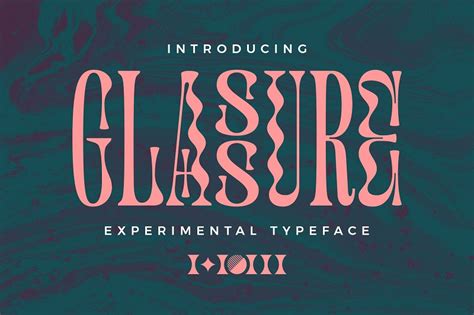
Unlock Your Creative Vibe With Psychedelic Fonts
Unlock Your Creative Vibe with Psychedelic Fonts
Hey design fanatics and creative souls! Ever stumbled upon a font that just screams vibe ? That’s where psychedelic fonts come into play. These aren’t your average, run-of-the-mill letterforms, guys. We’re talking about fonts that are bold, groovy, and dripping with personality, perfect for making any design project pop. If you’re looking to add a touch of retro flair, mind-bending aesthetics, or just something seriously unique to your work, you’ve landed in the right place. Let’s dive deep into the kaleidoscopic world of psychedelic typography and discover how you can harness its power to create something truly unforgettable. Whether you’re a seasoned designer or just dabbling in creative projects, understanding the impact of these fonts can seriously elevate your game. We’re going to explore what makes them so special, where you can find them, and how to use them effectively. Get ready to trip out on some amazing type!
What Exactly Are Psychedelic Fonts?
So, what’s the big deal about psychedelic fonts ? Think back to the swinging sixties and seventies – the era of vibrant colors, mind-expanding music, and art that pushed boundaries. Psychedelic typography emerged from this cultural explosion, aiming to visually represent the feeling of a psychedelic experience. These fonts are characterized by their fluidity , organic shapes , and often exaggerated features . You’ll often see them with wavy lines, distorted letterforms, bubbly or bulbous elements, and sometimes even a sense of movement or distortion. They’re designed to grab attention and evoke a specific mood – one of fun, rebellion, freedom, and a bit of playful weirdness. Unlike the clean, minimalist fonts we see everywhere today, psychedelic fonts embrace maximalism. They’re about making a statement, being bold, and not afraid to be a little bit over the top. The goal is to create a visual experience that’s as engaging and memorable as the content itself. They can range from softly rounded and whimsical to sharp, angular, and intensely energetic. The key is that they break away from conventional typographic rules, offering a unique visual language that speaks volumes about creativity and individuality. They are often inspired by natural forms, flowing water, or even the visual patterns seen during altered states of consciousness, translating these abstract concepts into tangible letterforms that feel alive and dynamic. It’s this departure from the norm that makes them so captivating and effective for certain design applications.
The History and Cultural Impact of Psychedelic Typography
To truly appreciate psychedelic fonts , we gotta take a trip down memory lane. These distinctive letterforms really hit their stride in the 1960s and 1970s , a period marked by counterculture, rock and roll, and a whole lot of experimentation. Think iconic band posters for Jimi Hendrix, The Doors, and Janis Joplin – those posters were often emblazoned with typography that mirrored the music’s energy and the era’s spirit. Artists like Wes Wilson and Victor Moscoso were pioneers, creating lettering that was as much a part of the artwork as the illustrations themselves. They understood that the font wasn’t just text; it was an experience . It needed to be visually arresting, reflecting the mind-bending, kaleidoscopic visuals often associated with psychedelic art. The design movement itself was heavily influenced by Art Nouveau, with its flowing lines and organic forms, but it injected a dose of modern rebellion and pop art vibrancy. This wasn’t just about looking cool; it was about communicating a feeling, a mindset . Psychedelic typography became synonymous with freedom, experimentation, and a rejection of mainstream conformity. It was used not only on concert posters and album covers but also in advertising, book covers, and even fashion, leaving an indelible mark on graphic design history. Its legacy continues to inspire designers today, offering a rich source of inspiration for projects that need that extra splash of retro cool and artistic flair. The impact was so profound that even today, when we see certain wavy, distorted, or bubble-like fonts, our brains often make an instant connection to that vibrant, rebellious era, proving the enduring power of this unique typographic style. It wasn’t just a trend; it was a visual manifestation of a cultural revolution.
Key Characteristics of Psychedelic Fonts
Alright, let’s break down what makes a font scream psychedelic . It’s not just one thing, but a combination of elements that give these fonts their signature look and feel. First off, you’ll notice the fluidity and organic shapes . Forget rigid, straight lines. Psychedelic fonts often feature curves that flow, loops that swirl, and letterforms that seem to melt or morph into each other. They’re inspired by nature, like flowing water or growing vines, giving them a soft, sometimes trippy, visual texture. Another big one is exaggeration and distortion . Letters might be stretched, compressed, or twisted in ways that defy traditional typography. Think bubble letters on steroids, or letters that seem to pulse and breathe. This distortion isn’t random; it’s a deliberate artistic choice to create visual interest and evoke a sense of altered perception. You’ll also frequently see bold, vibrant colors and patterns . While the font itself is the star, the way it’s often presented – with gradients, psychedelic patterns, or high-contrast color schemes – amplifies its impact. Many fonts designed in this style have an inherent visual rhythm and movement. They can make your eyes dance across the page, drawing you into the design. Think about the classic posters where the band name looks like it’s bending and warping – that’s the essence of psychedelic movement in typography. Lastly, many psychedelic fonts incorporate decorative elements . Swirls, dots, starbursts, and other flourishes are often integrated into the letterforms or used as surrounding embellishments, adding to the overall maximalist and celebratory aesthetic. These elements aren’t just additions; they’re integral to the font’s identity, contributing to its playful, energetic, and visually rich character. When you combine these features, you get a font that’s not just readable text, but a piece of art in itself, capable of transforming a simple design into a captivating visual statement.
Where to Find Awesome Psychedelic Fonts
Ready to get your hands on some mind-blowing type? Finding great psychedelic fonts is easier than you might think, especially with the vast digital resources available today. A fantastic starting point is online font marketplaces and repositories. Websites like Google Fonts offer a surprisingly diverse collection, though you might need to search specifically for styles that lean towards retro or groovy. For a more curated selection, check out premium font sites such as MyFonts , FontSpring , or Creative Market . These platforms often have dedicated sections for vintage, retro, or display fonts where you’ll find tons of psychedelic gems, often created by independent typographers. Keep an eye out for keywords like